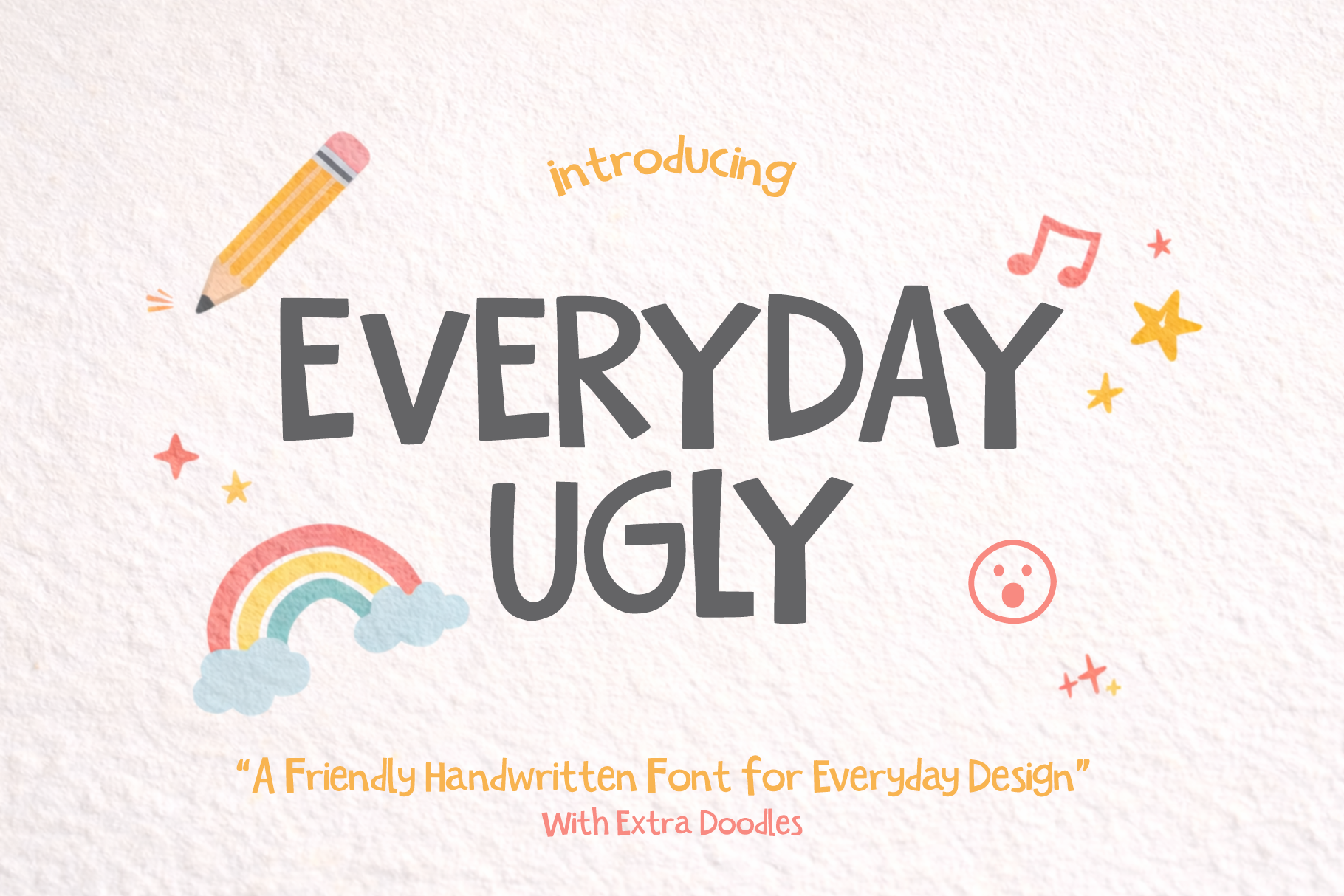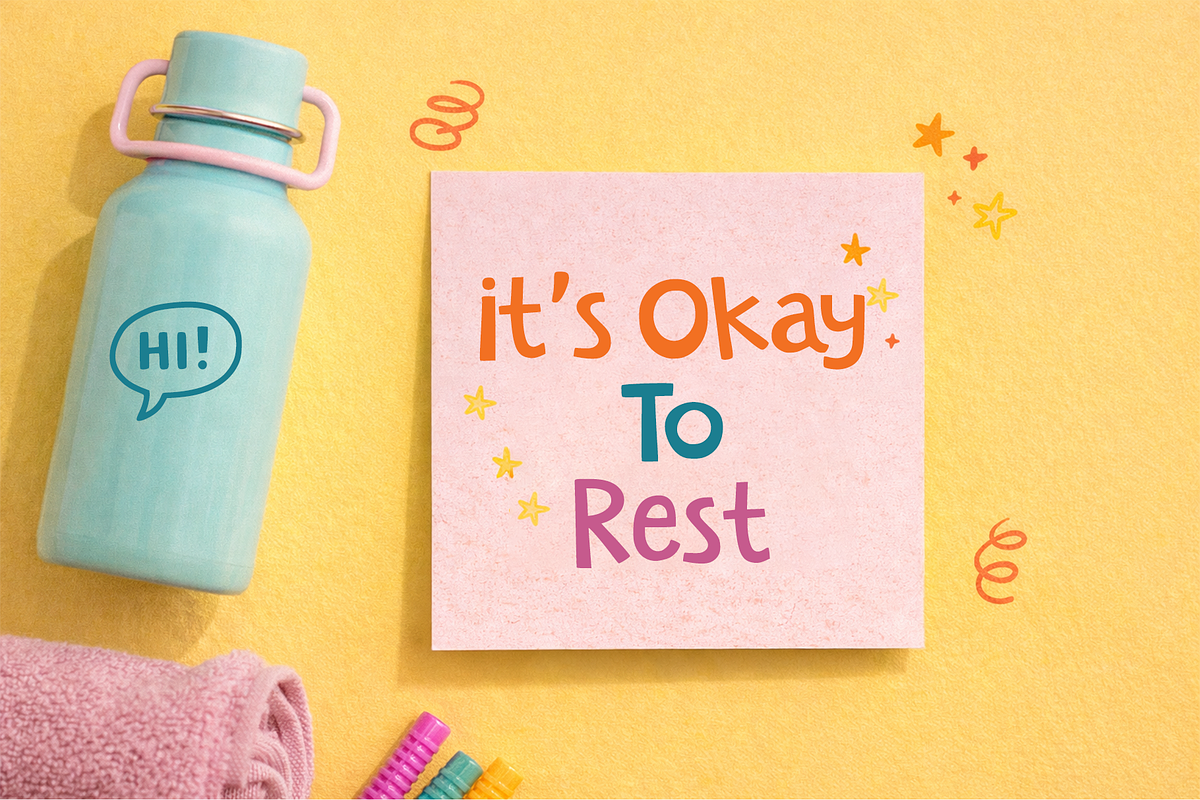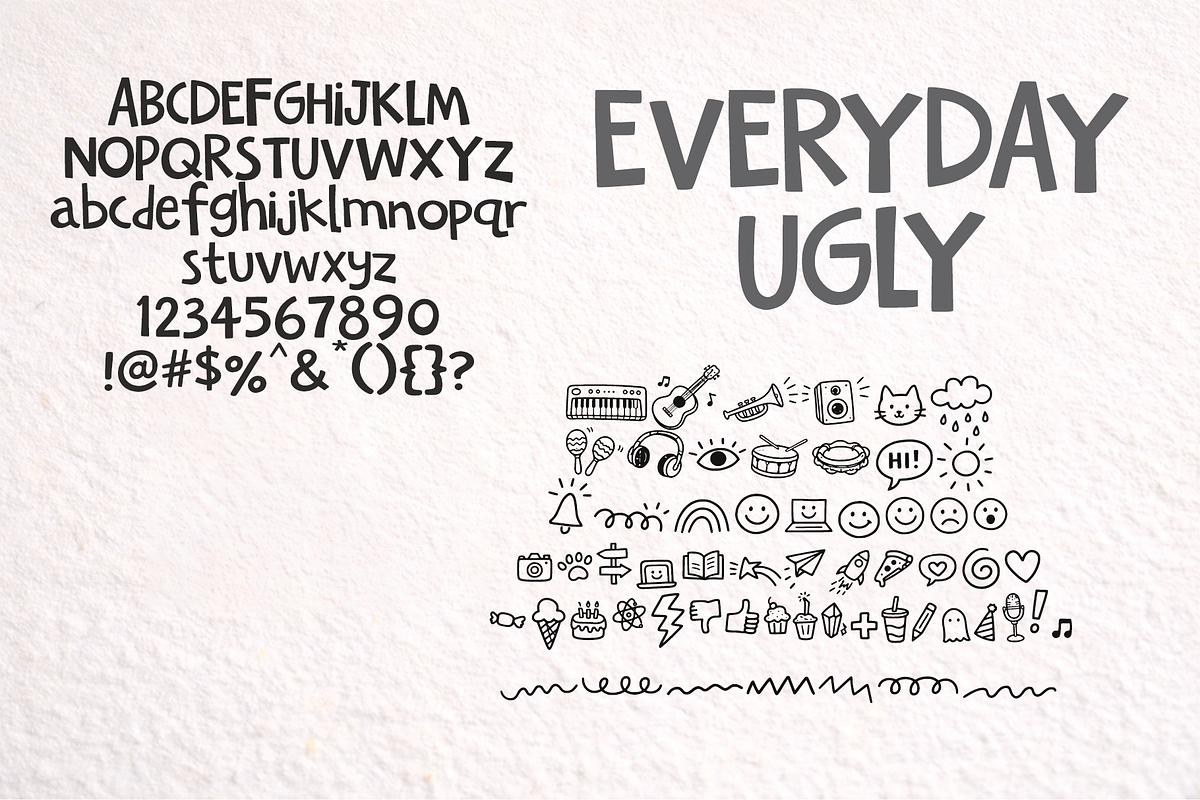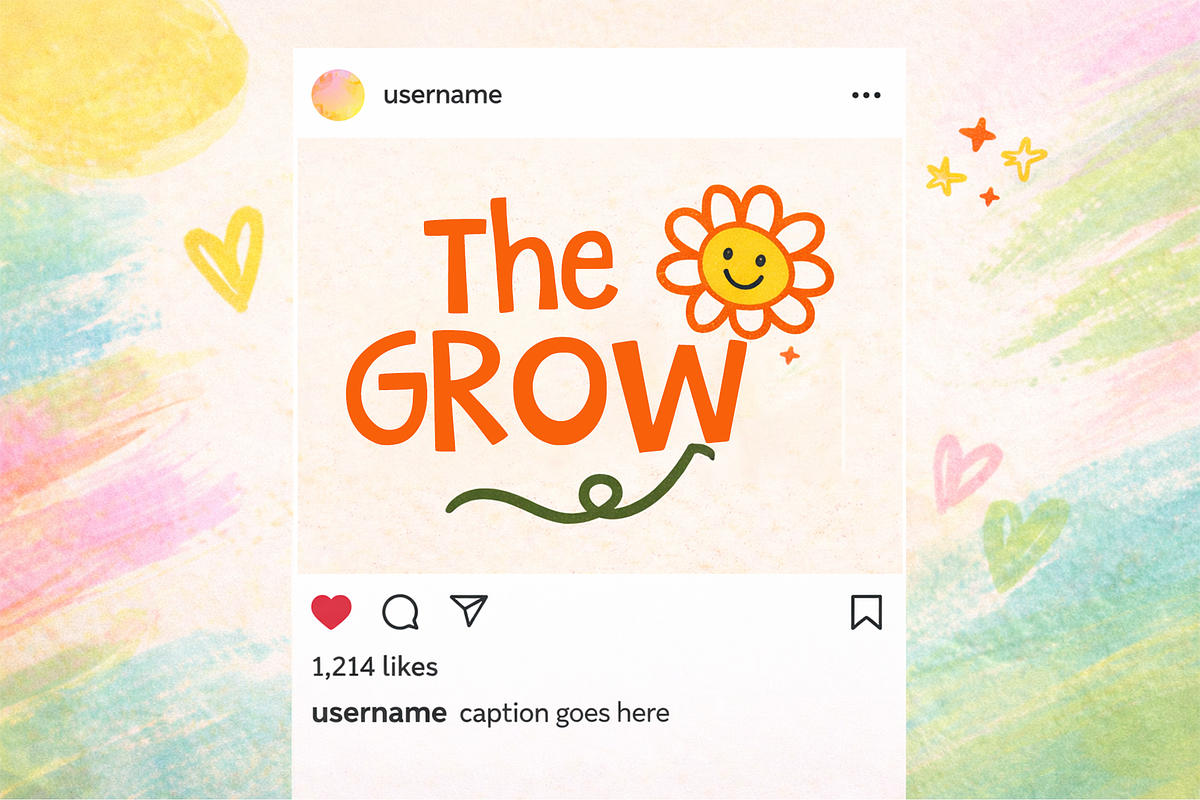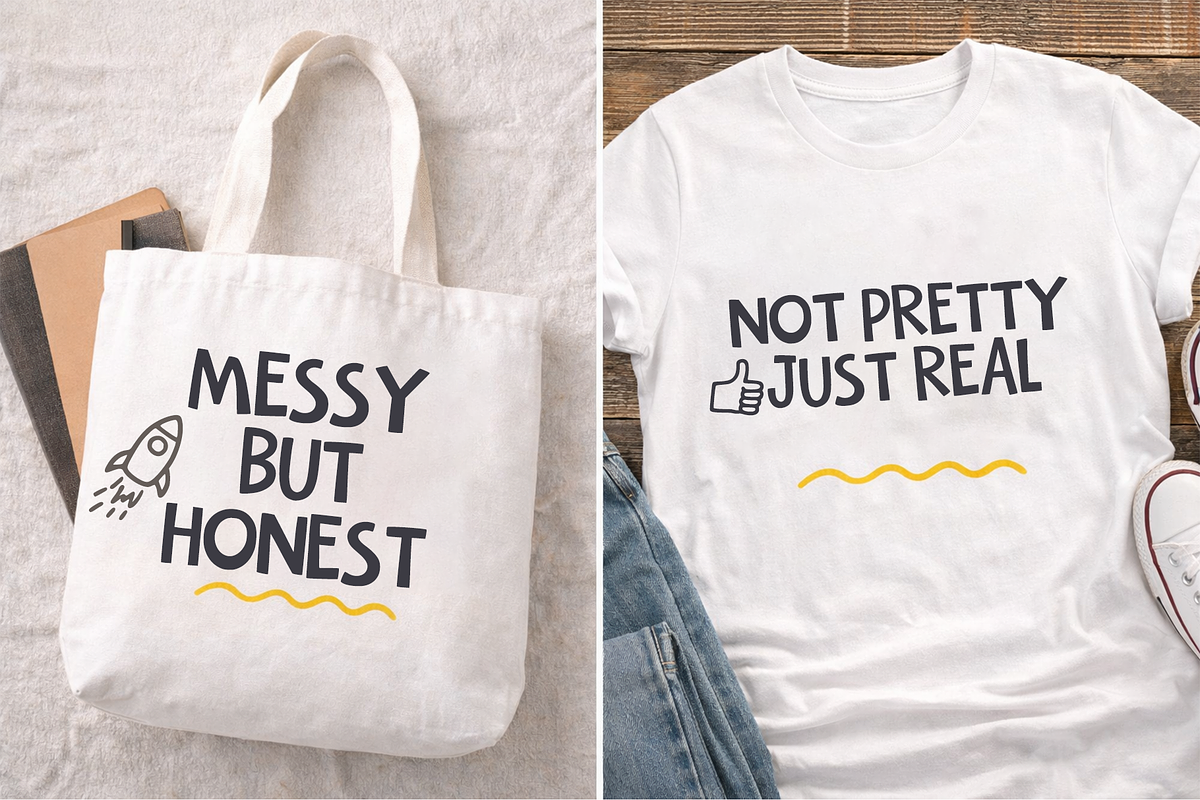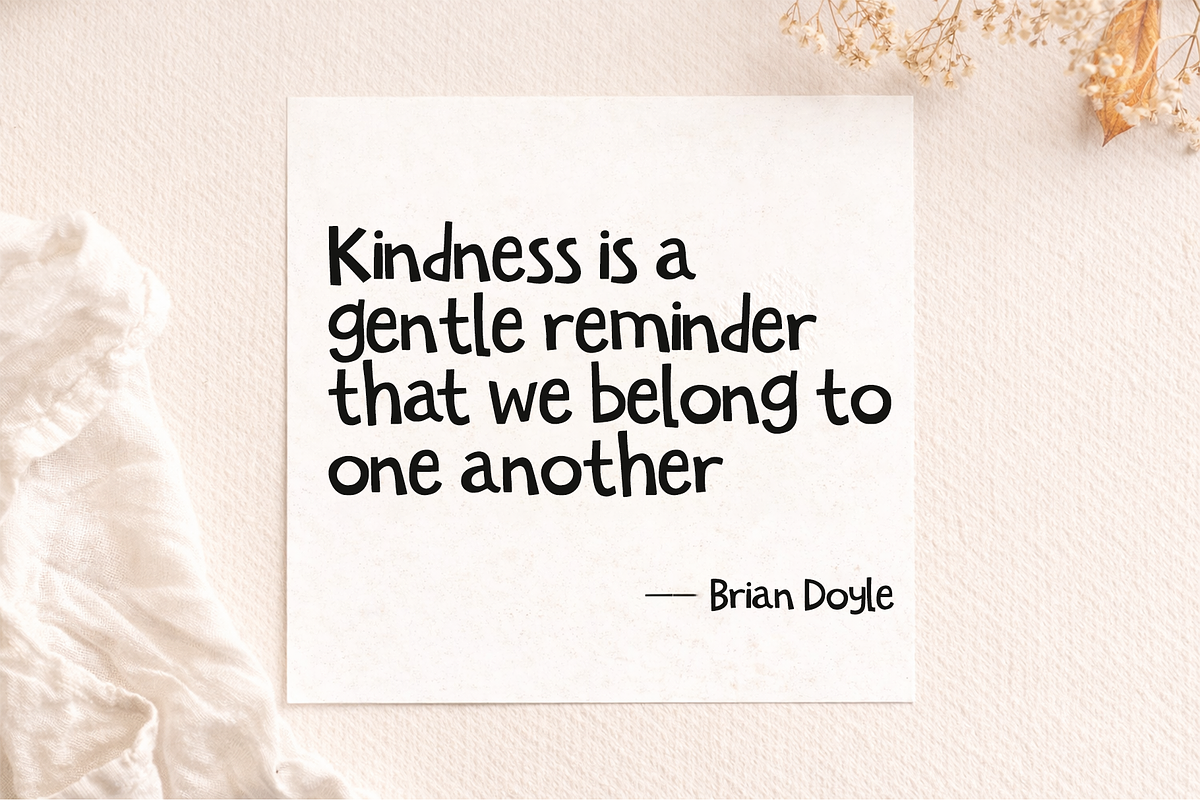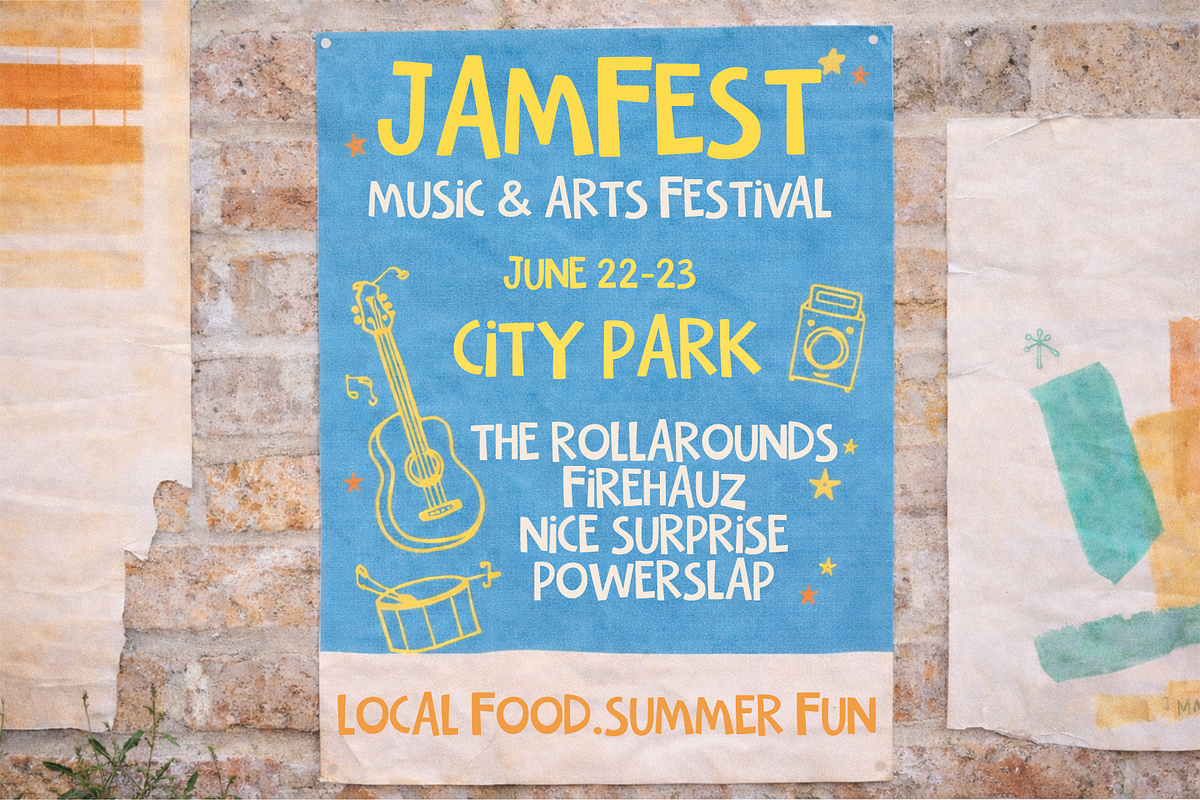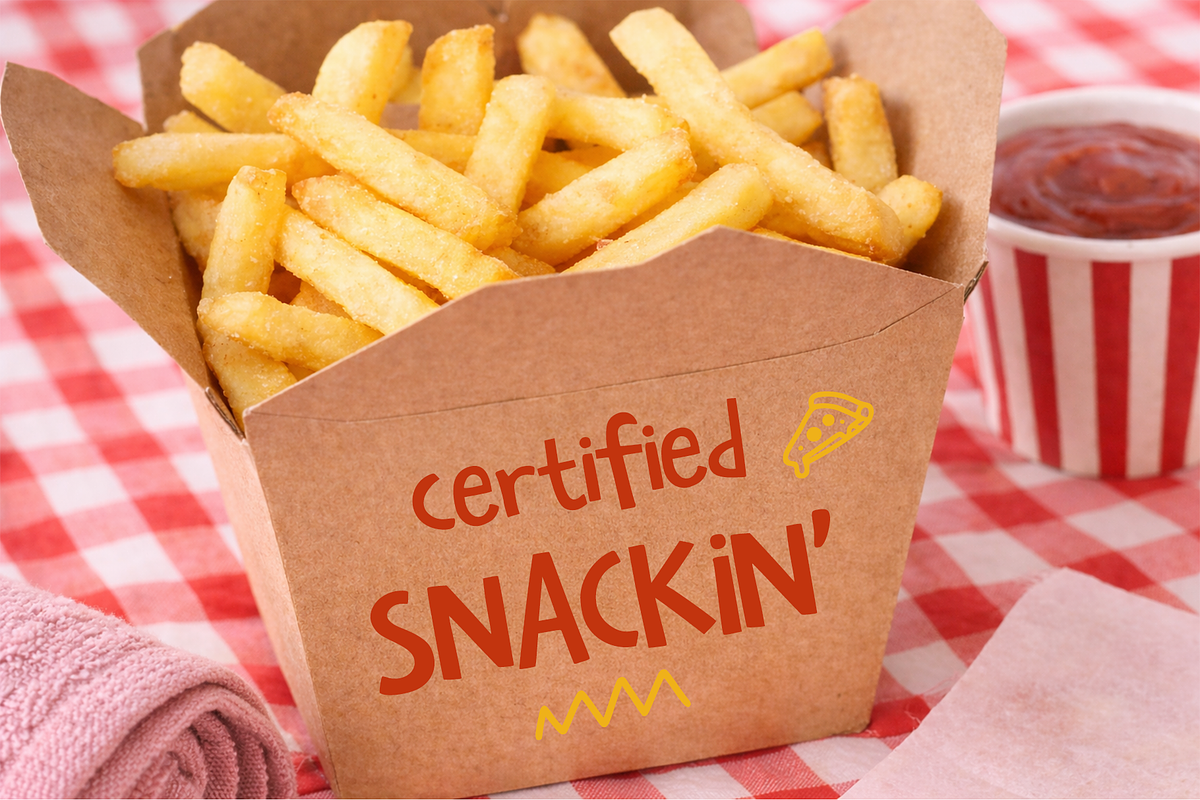
Everyday Ugly – Handwritten Font
Everyday Ugly is a thoughtfully crafted handwritten font that combines organic imperfection with refined visual balance. Designed to deliver warmth, character, and authenticity, this typeface is ideal for branding, packaging, merchandise, editorial layouts, posters, social media, and creative projects that require a distinctive yet polished handcrafted aesthetic. With strong readability and versatile application, Everyday Ugly elevates designs with subtle charm and professional quality.